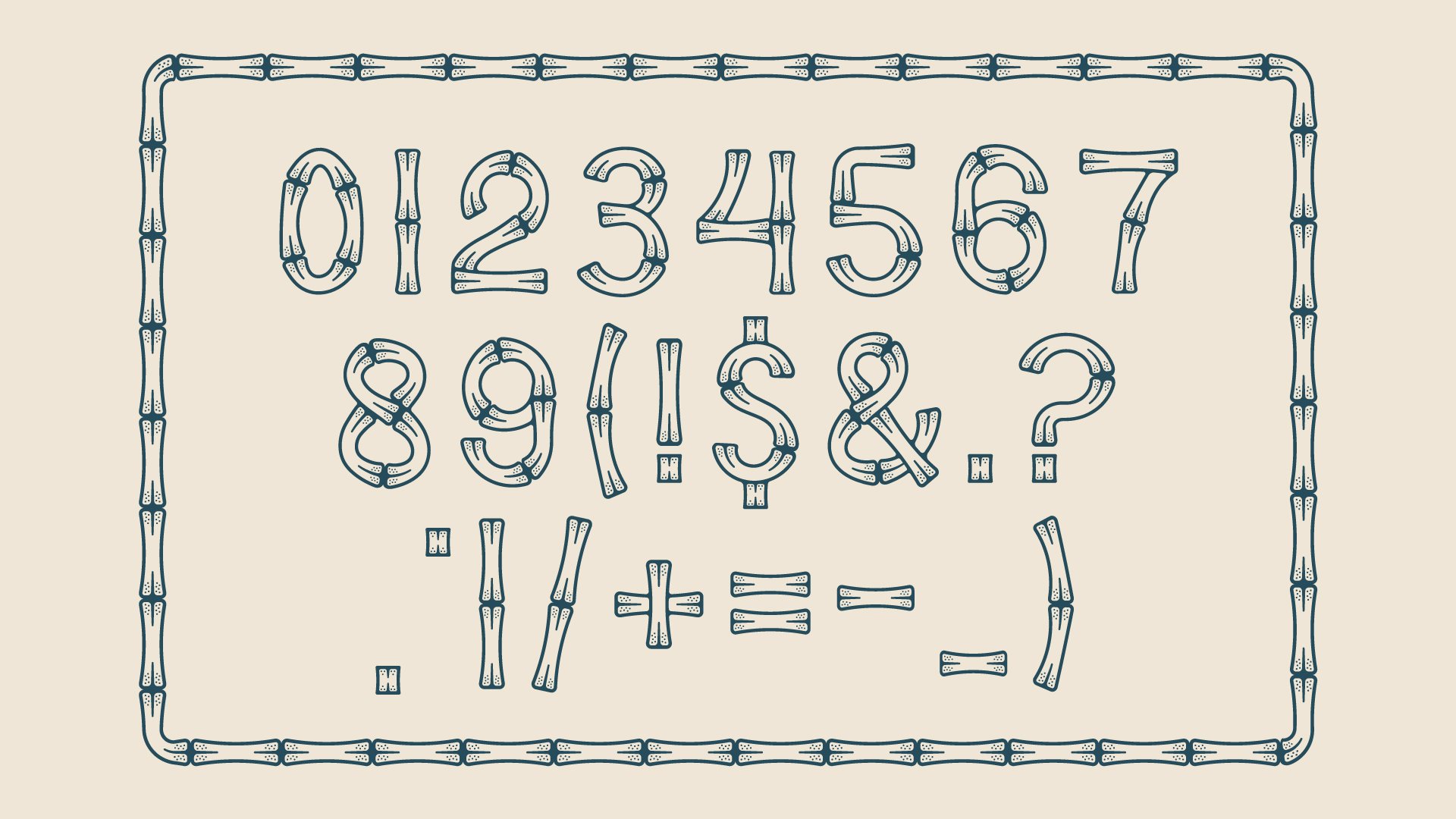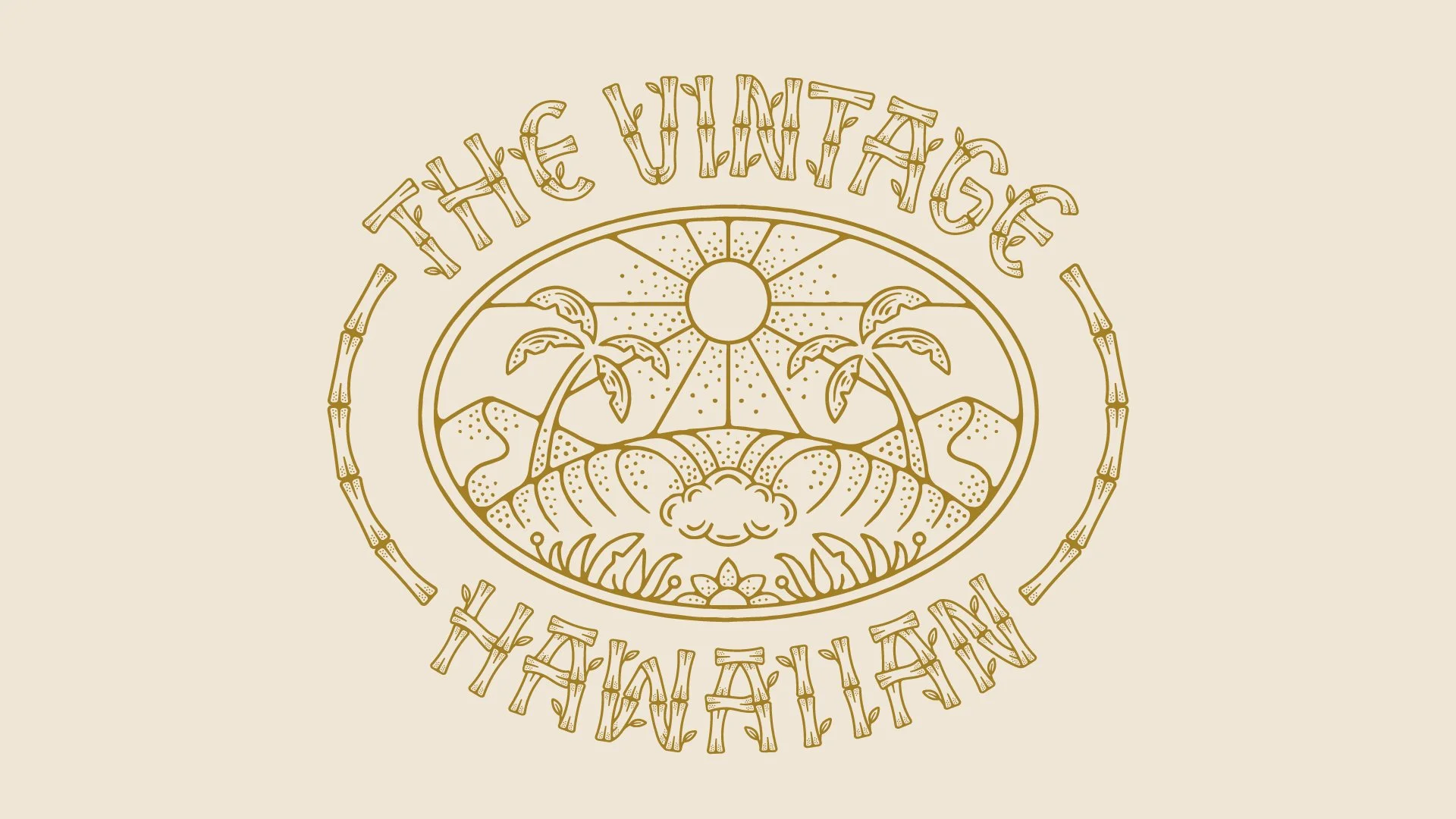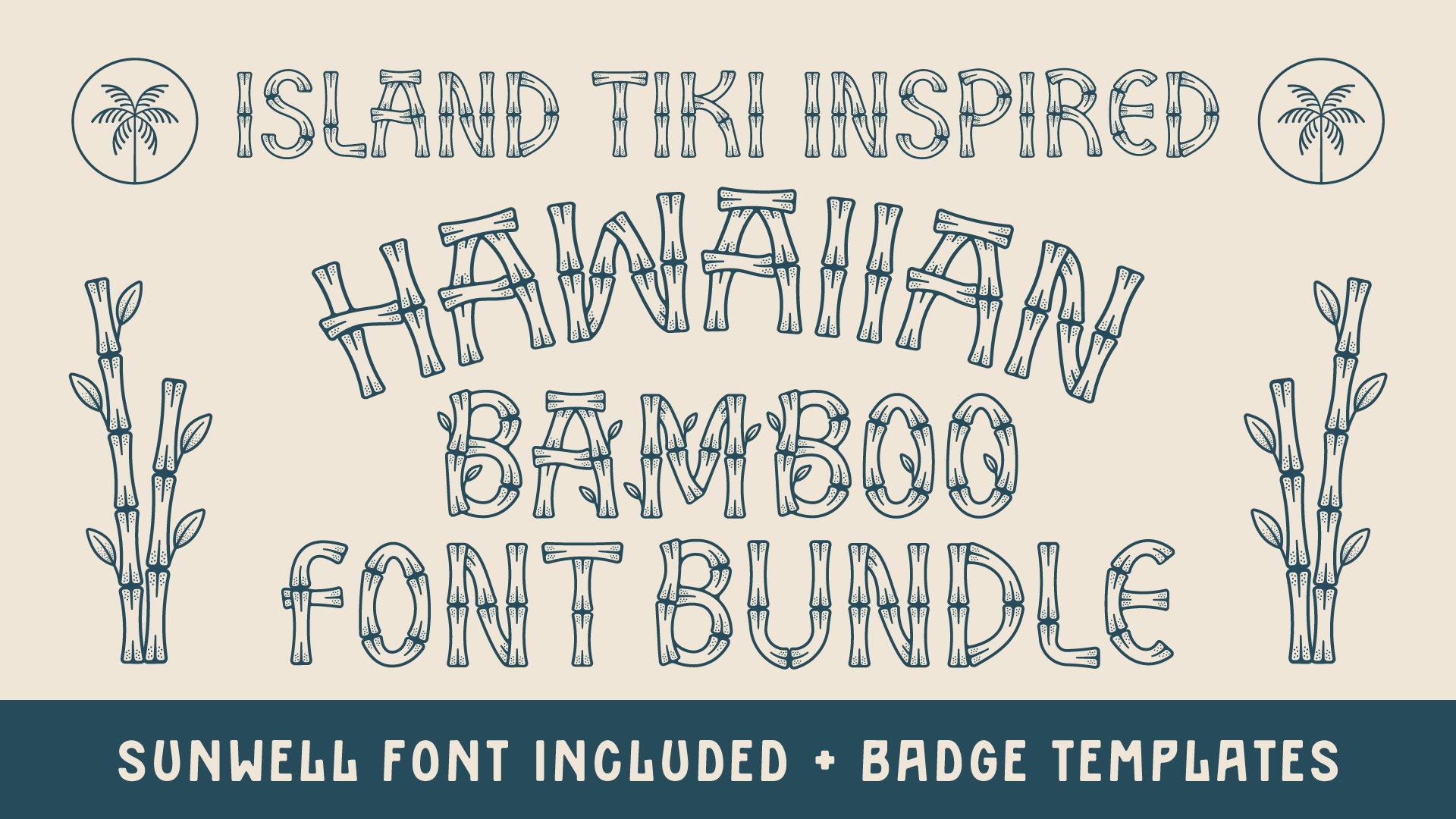
Hawaiian Bamboo Font Bundle
Introducing the Hawaiian Bamboo Font bundle! A display typeface that captures a vintage tiki vibe through the use of its organic & natural letterforms. Slap this typeface on your designs to quickly bring in some of that vintage island look. This bundle includes 3 typefaces and 8 pre made badge templates that work seamlessly with the font as well as the bamboo brush for illustrator.
I also wanted to include a font that pairs well with the Hawaiian Bamboo font, so as a bonus, all 3 Sunwell type styles are included in this bundle and work great as a secondary font.